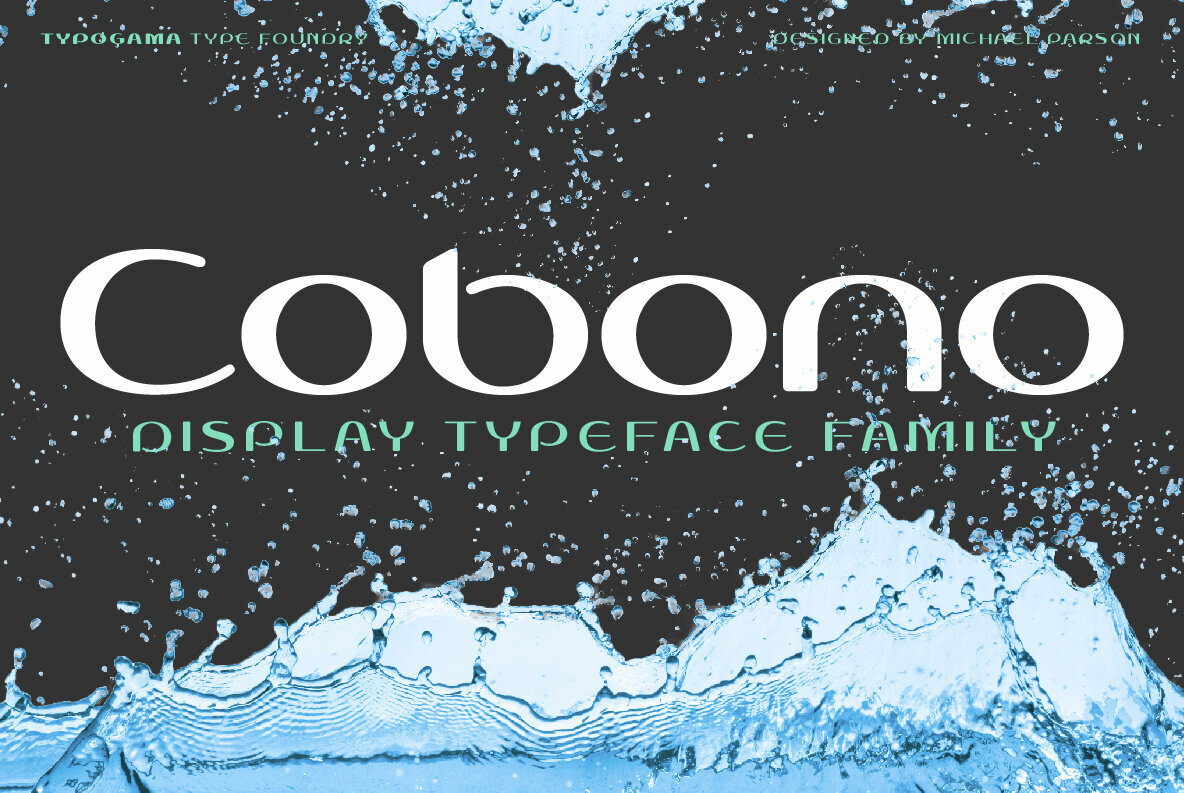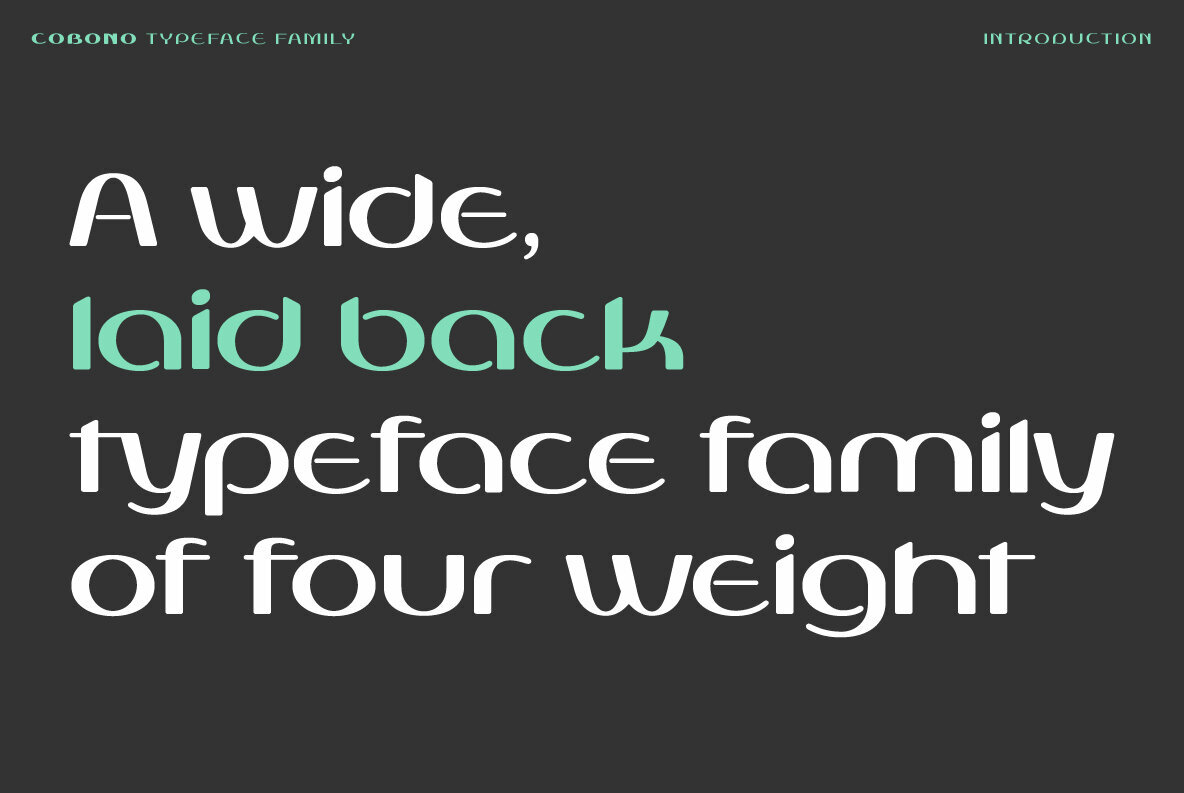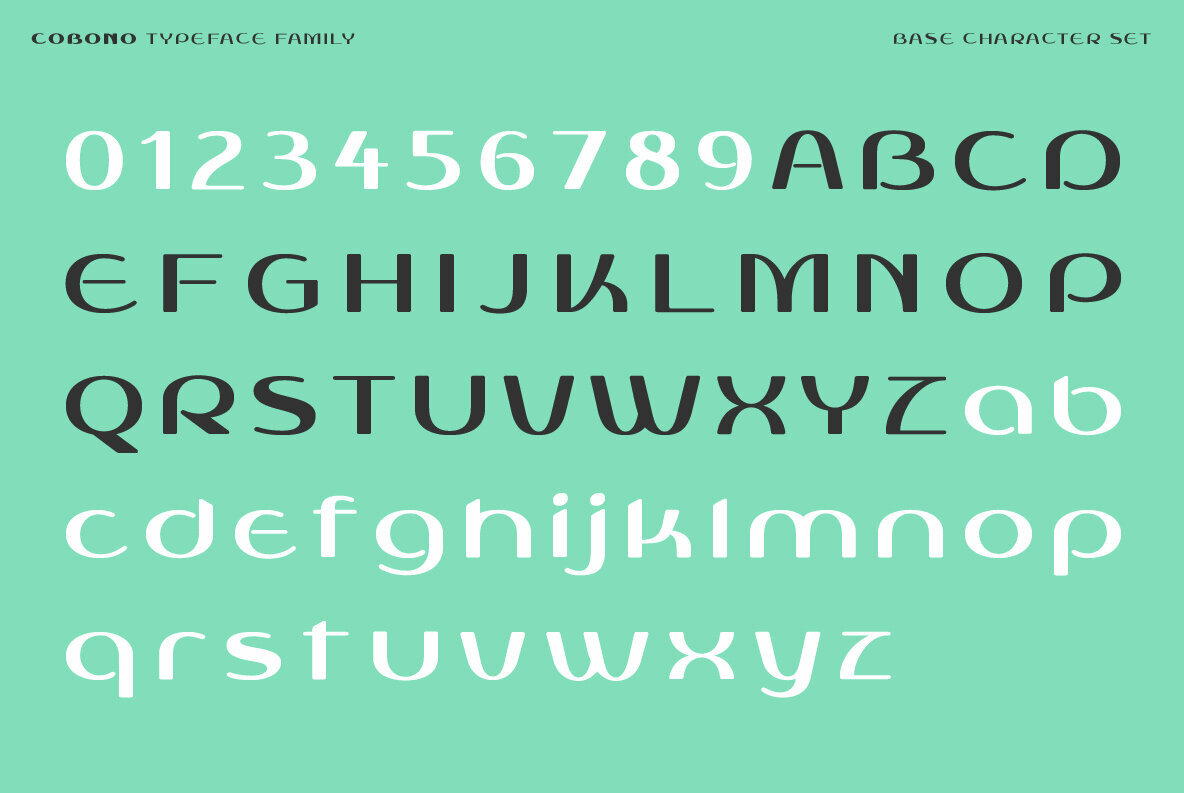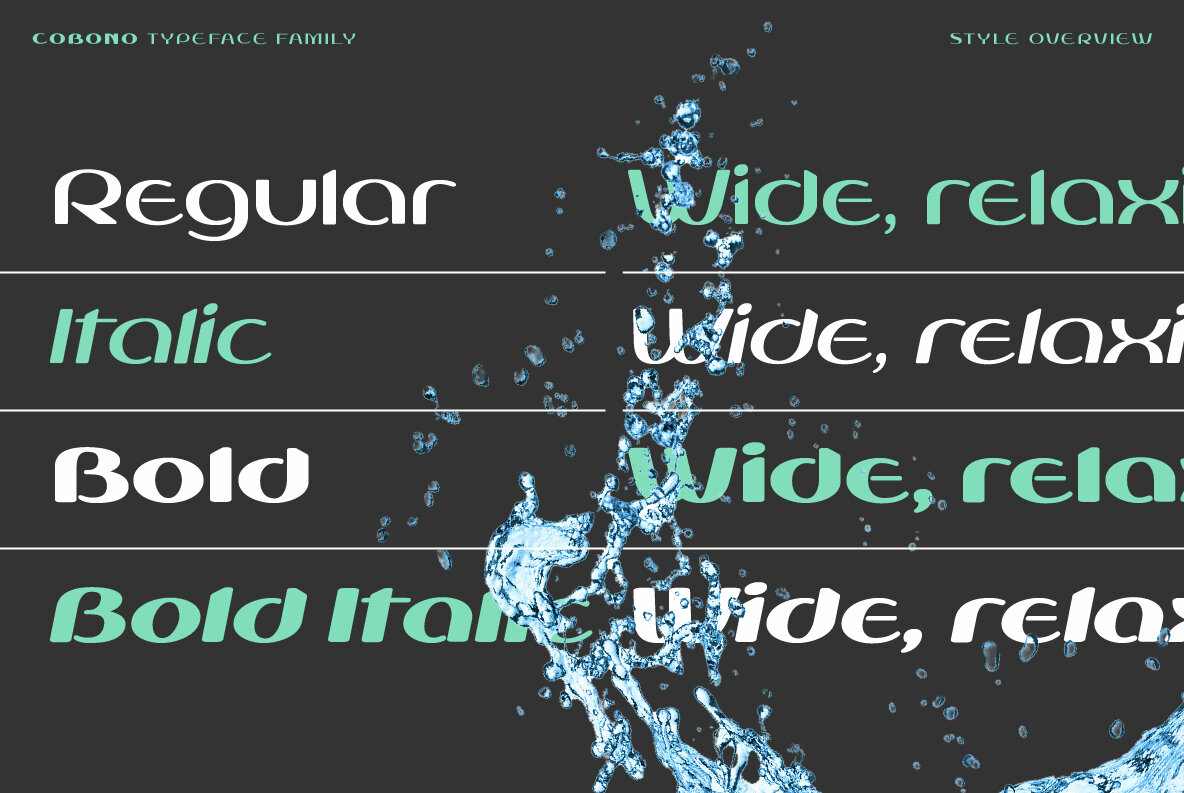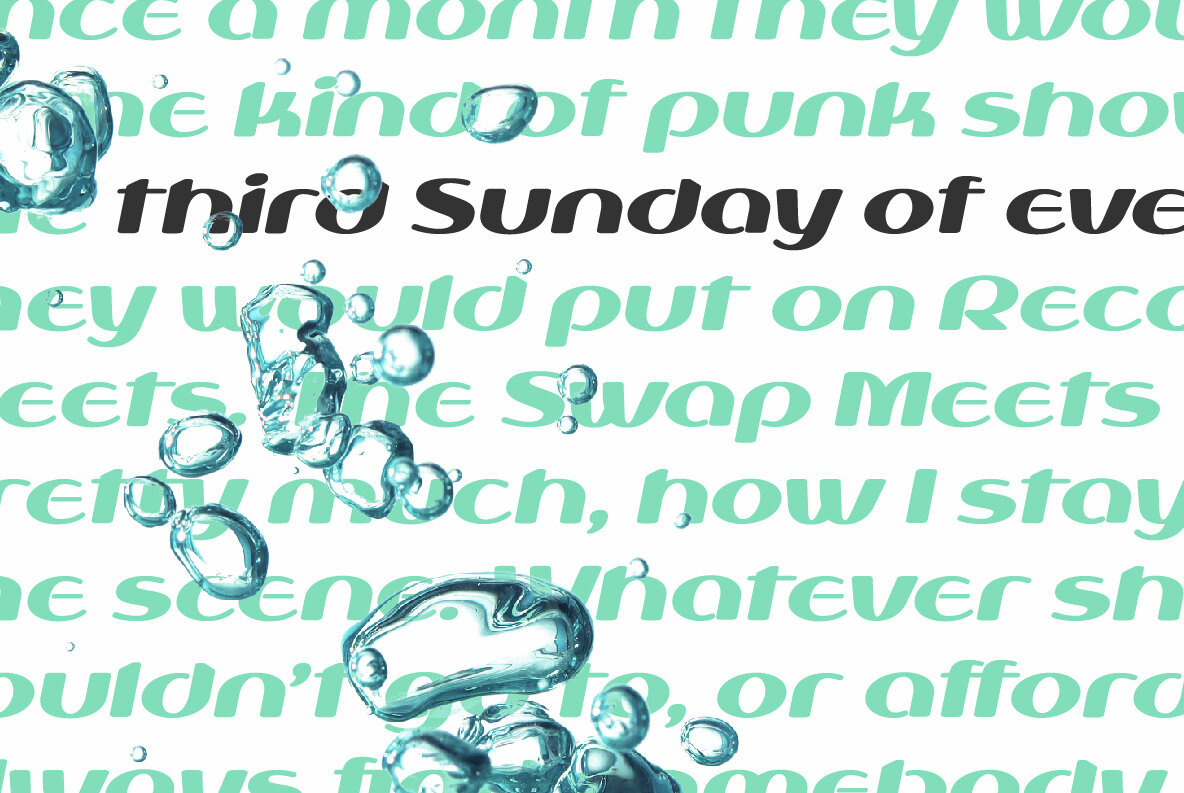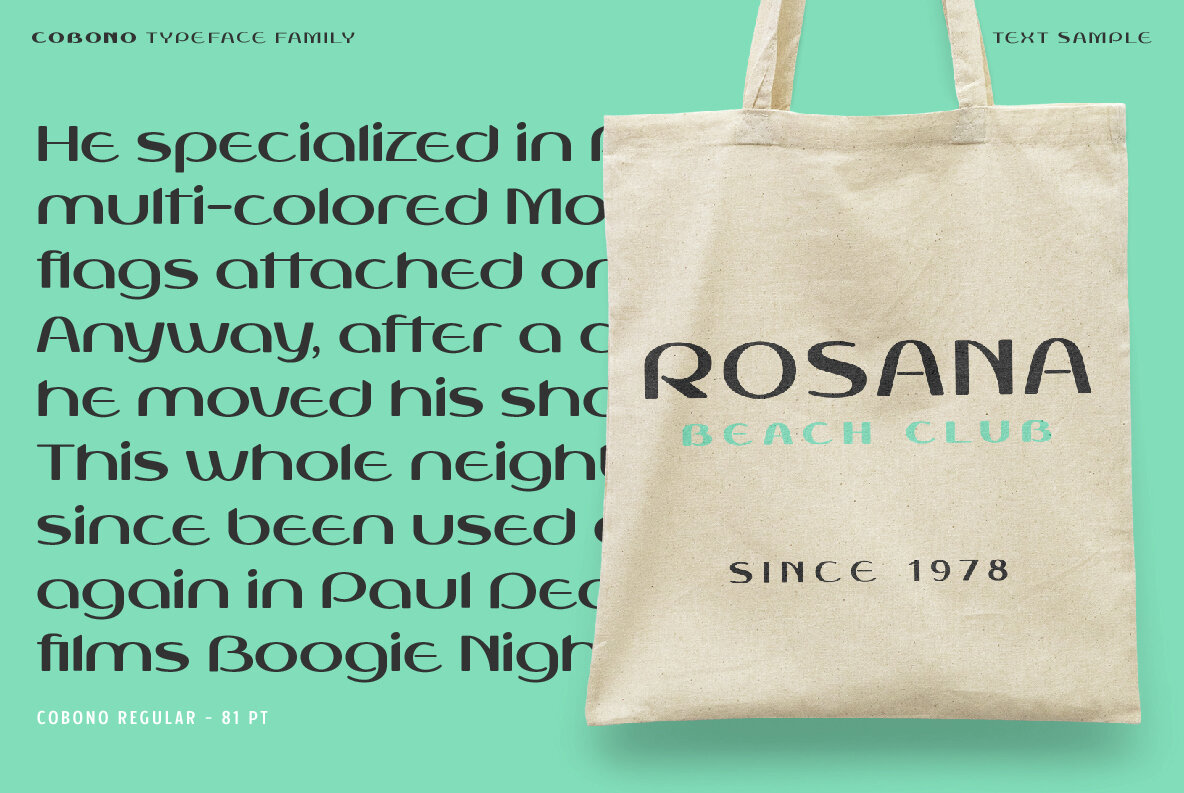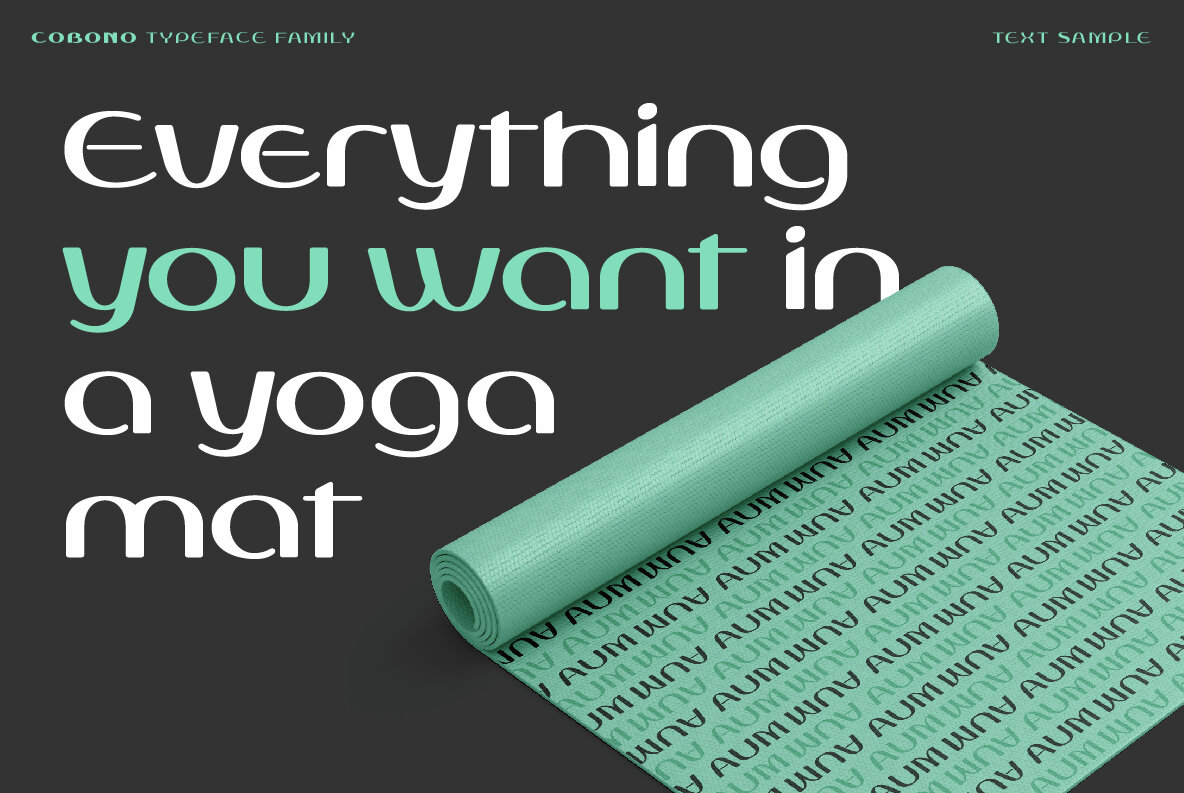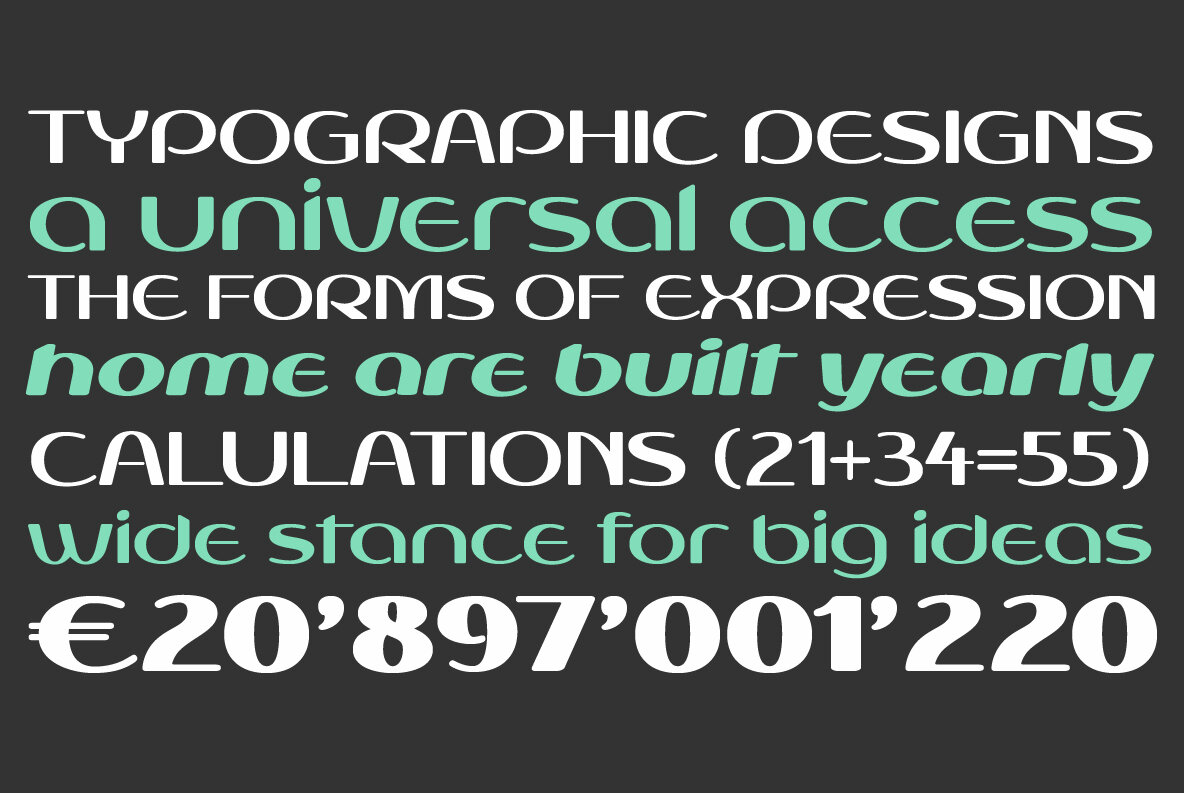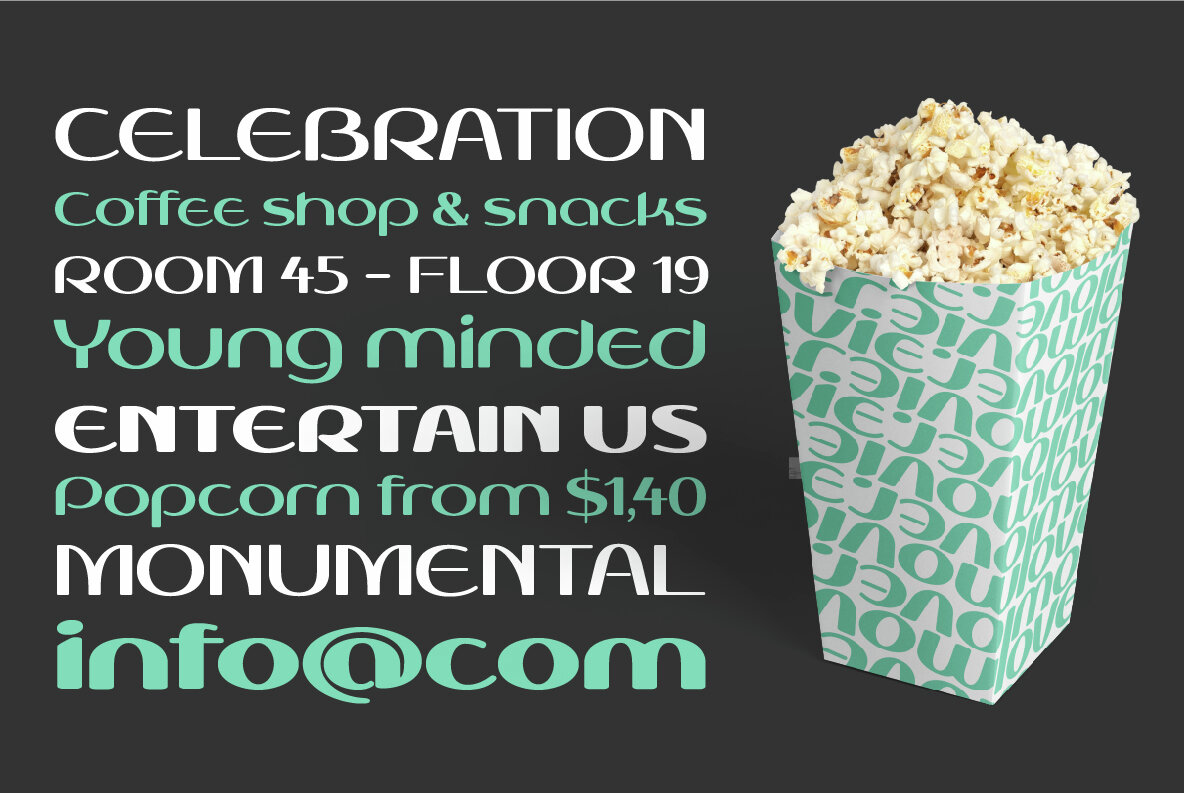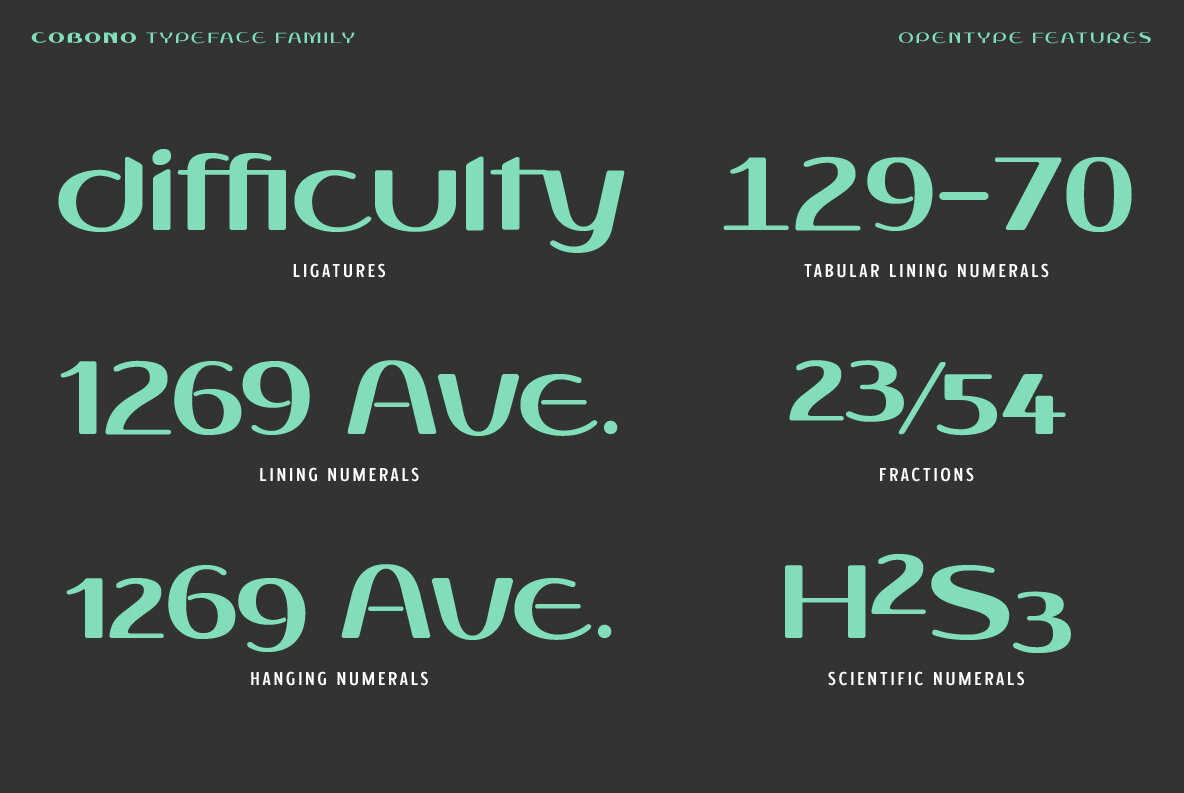
The Cobono font is a friendly, open display typeface aimed at uses in logo and titles. Intialy created as a series of letterforms for a logo, the typeface quickly evolved along the an overall concept of rounded shapes and a soft feature. The resulting typeface features a series of original characters yet retains a good overall legibility.